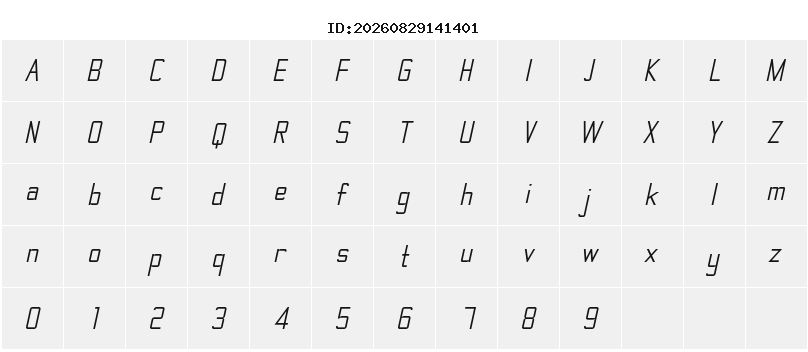
• Font Name: TheMatic
• Full Font Name: TheMatic Italic
• Manufacturer: StudioTypo
TheMatic.otf is a modern, elegant sans-serif font designed for ultimate readability and visual harmony. Perfect for branding, headlines, web design, and print materials.